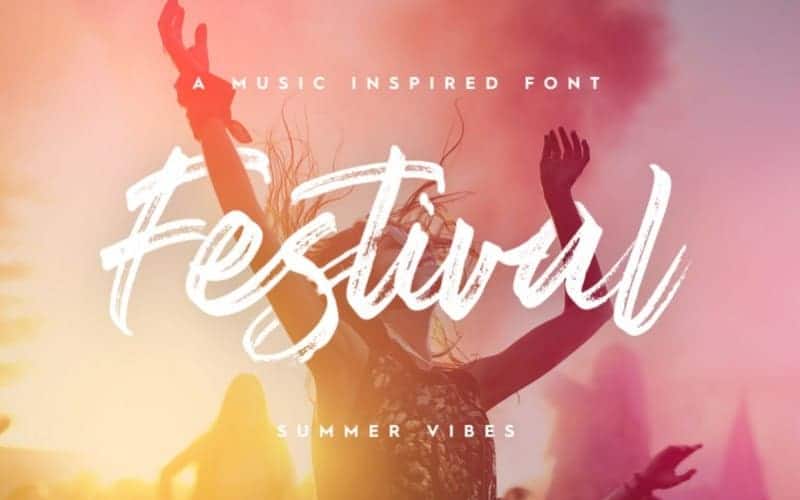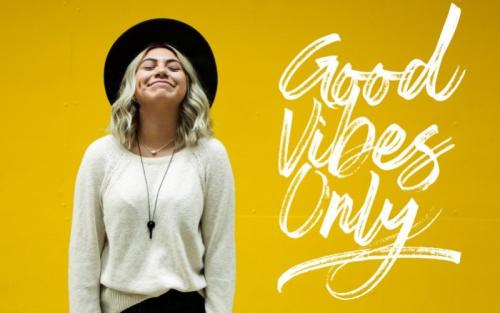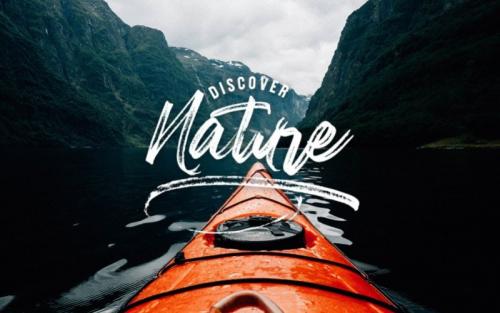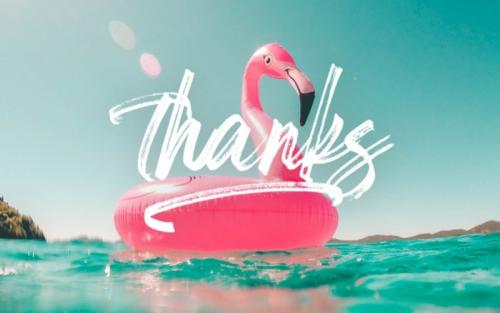
Festival arrives just in time for summer. Add some brightness and excitement to any project with this fun hand drawn script font.
Festival features multilingual characters plus a bunch of swashes that will help you create typography that pops.
- Designer: PixelSurplus